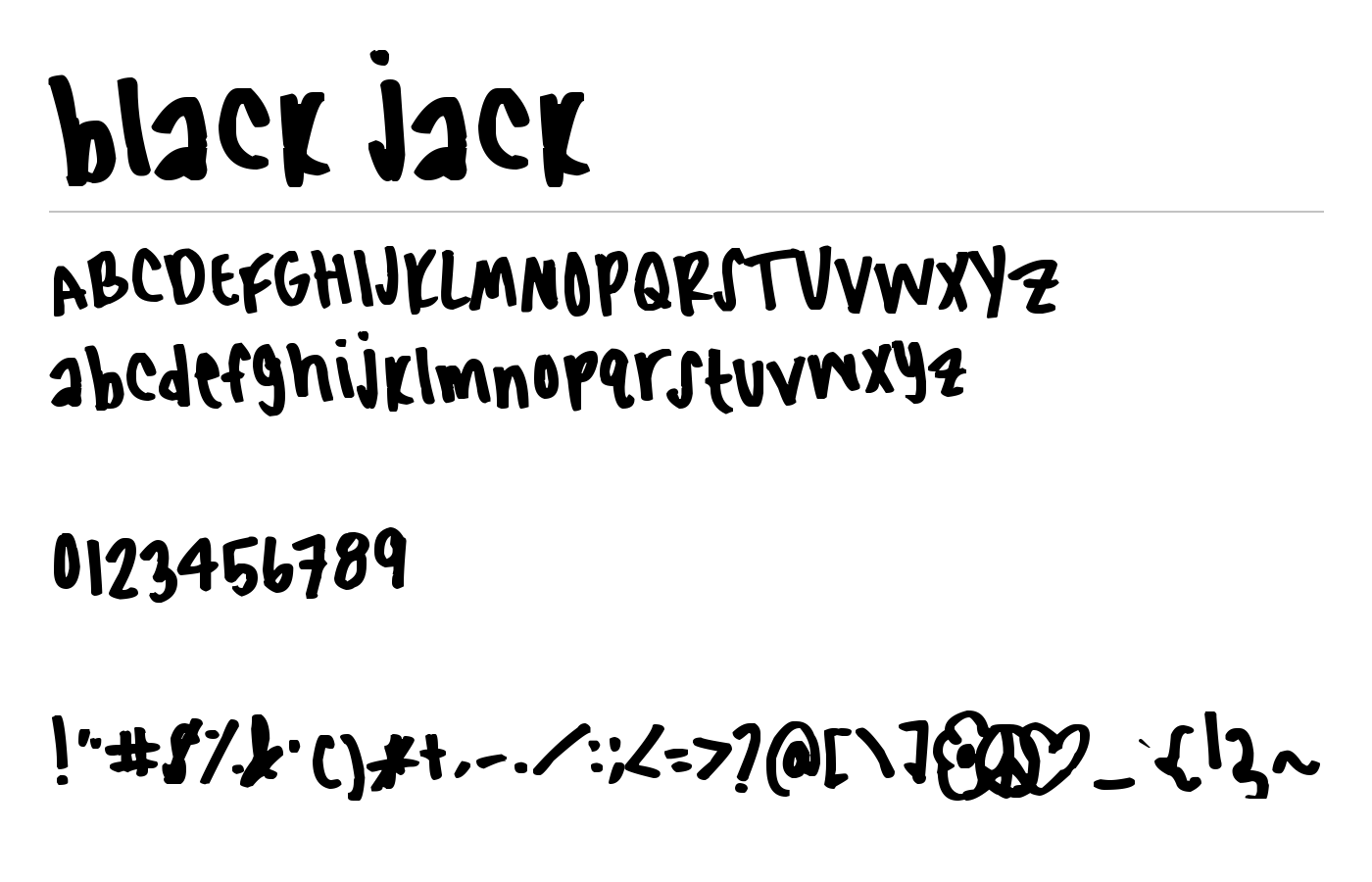
Black Jack is a casual, handwritten sans serif font with a playful and friendly vibe. Its irregular, slightly bold strokes and rounded shapes create a relaxed and approachable feel, making it perfect for informal branding, invitations, and creative projects that want to convey warmth and personality. This font works well in headlines and display settings where a personal, quirky touch is desired.
black jack Font
About black jack Font